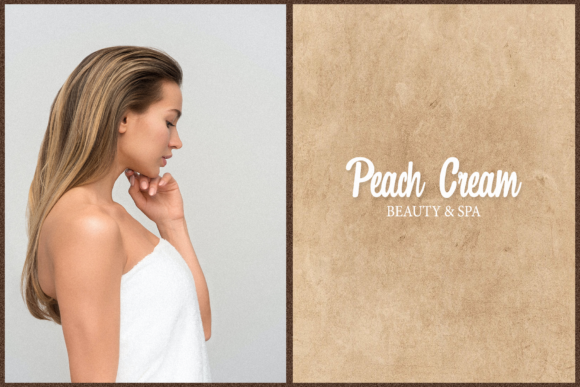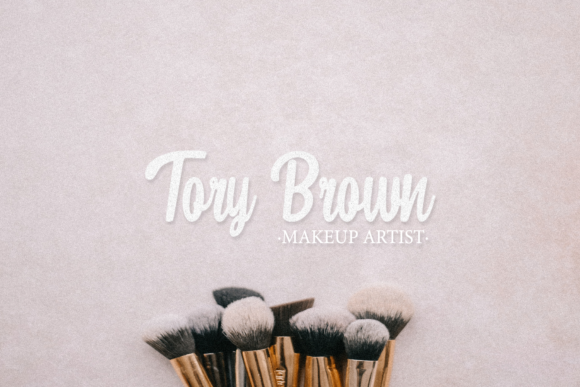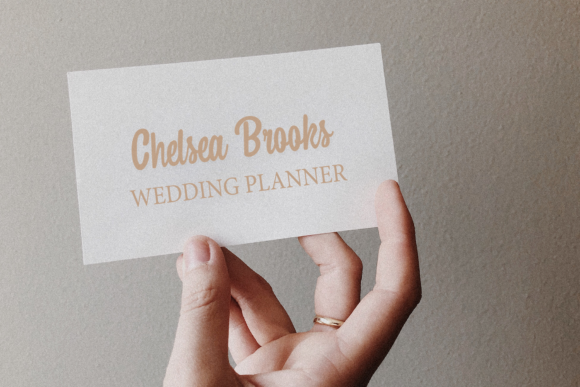
About Pear Font
Pear is a delicate handwritten font, with well balanced characters. Fall in love with its incredibly versatile style and use it to create gorgeous wedding invitations, beautiful stationary art, eye-catching social media posts, and much more!